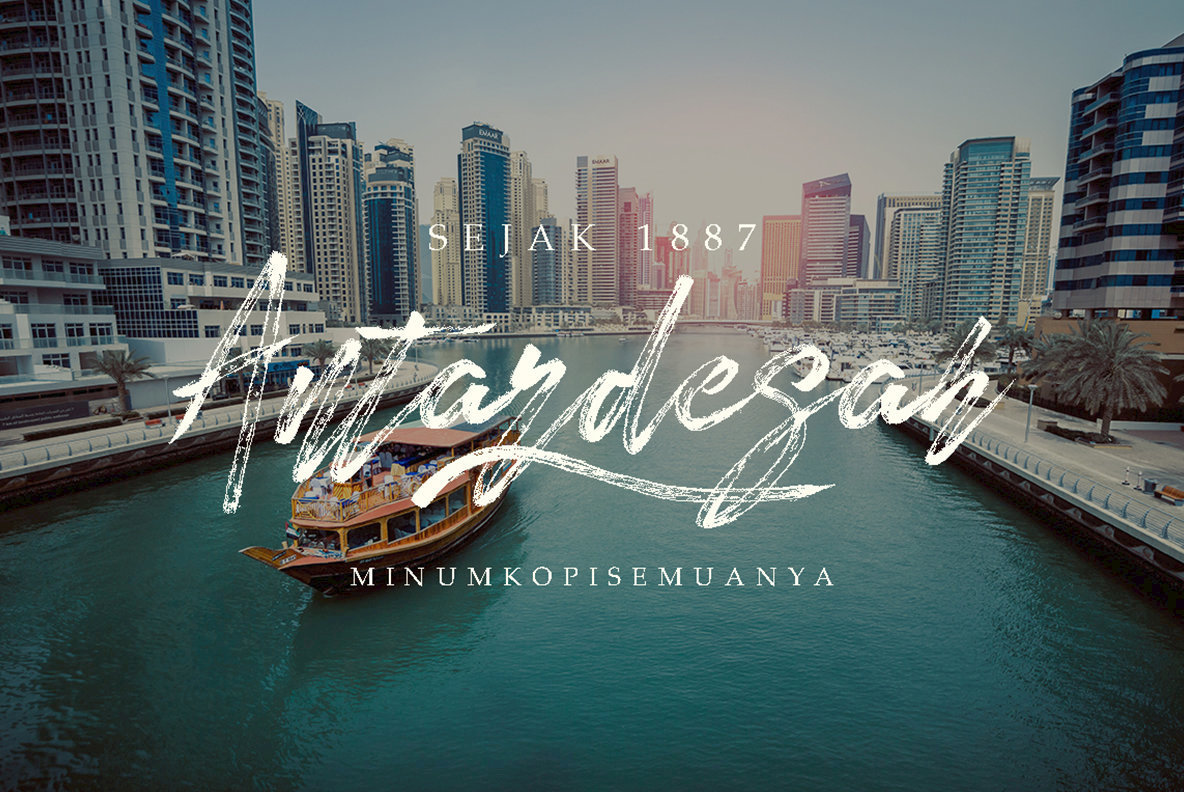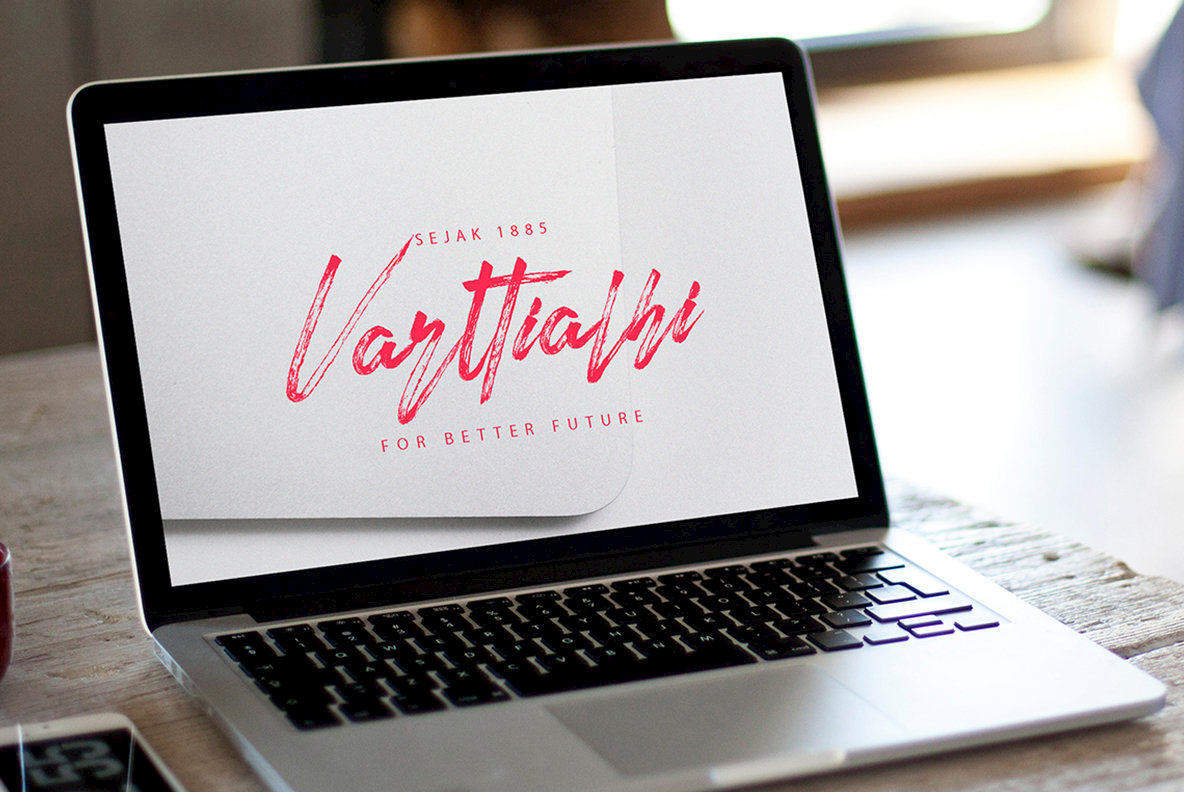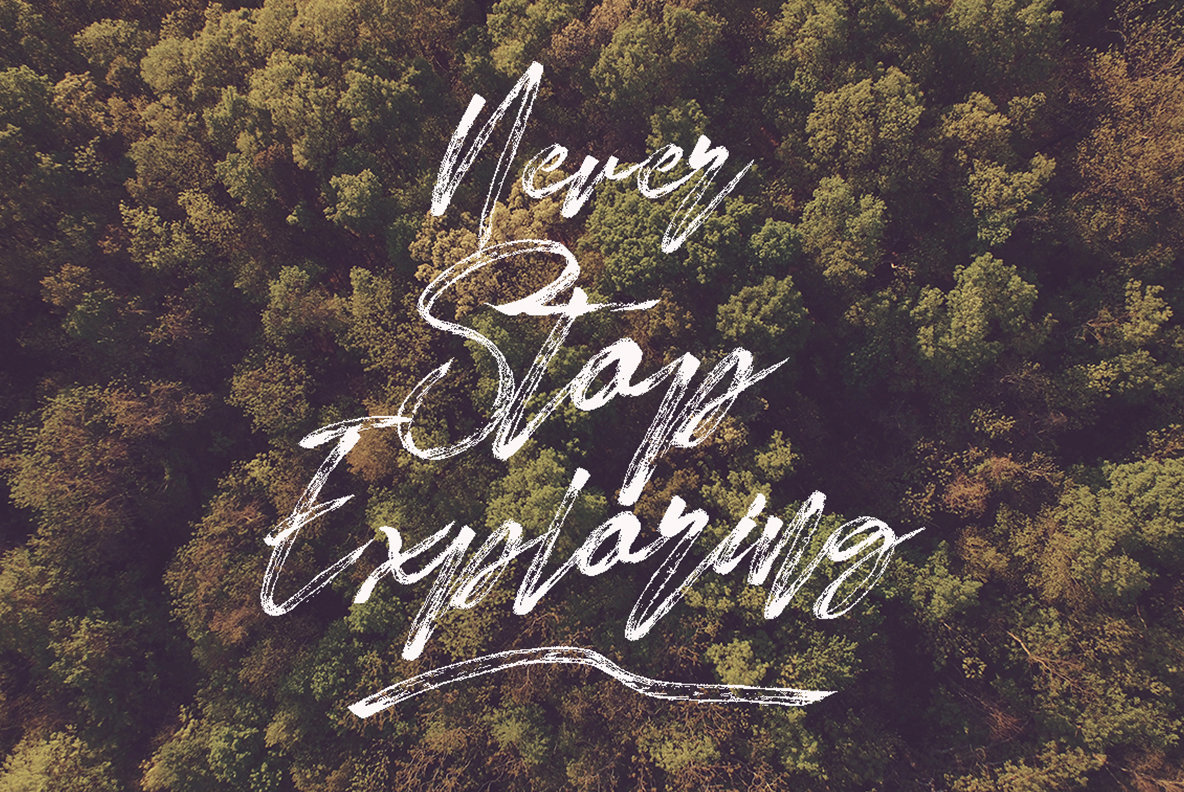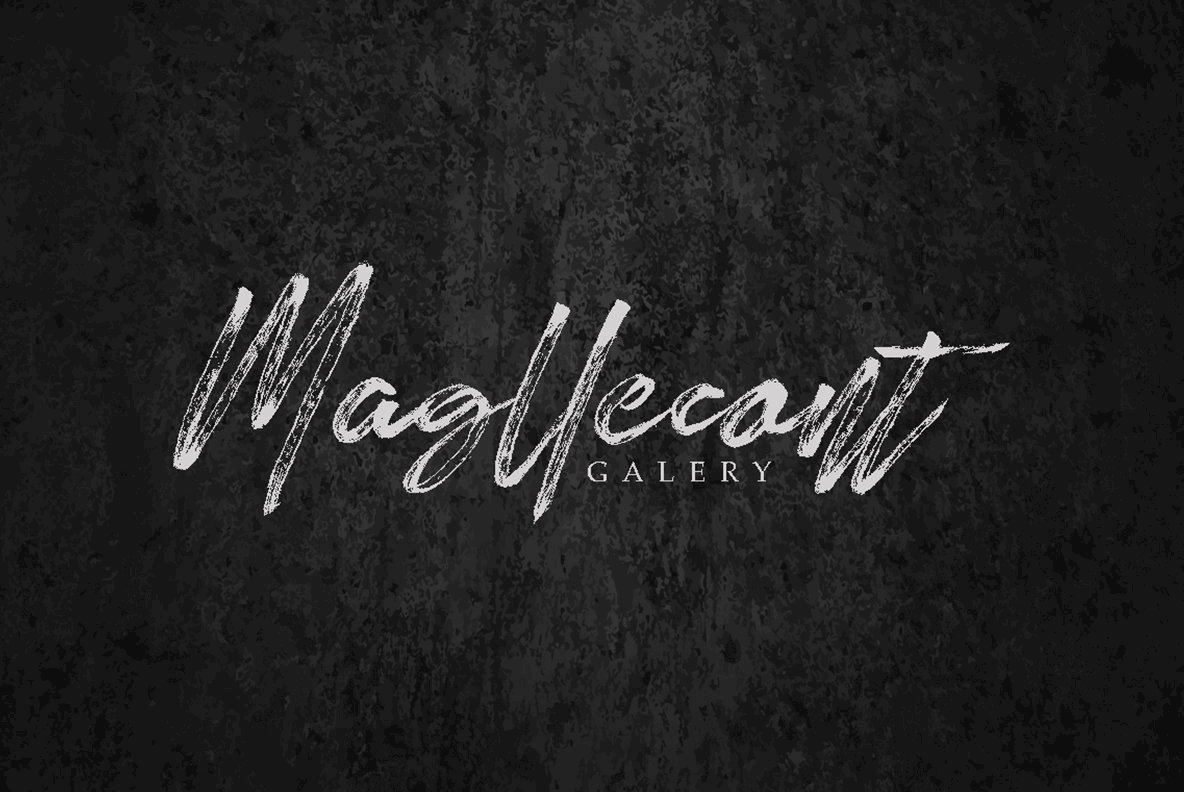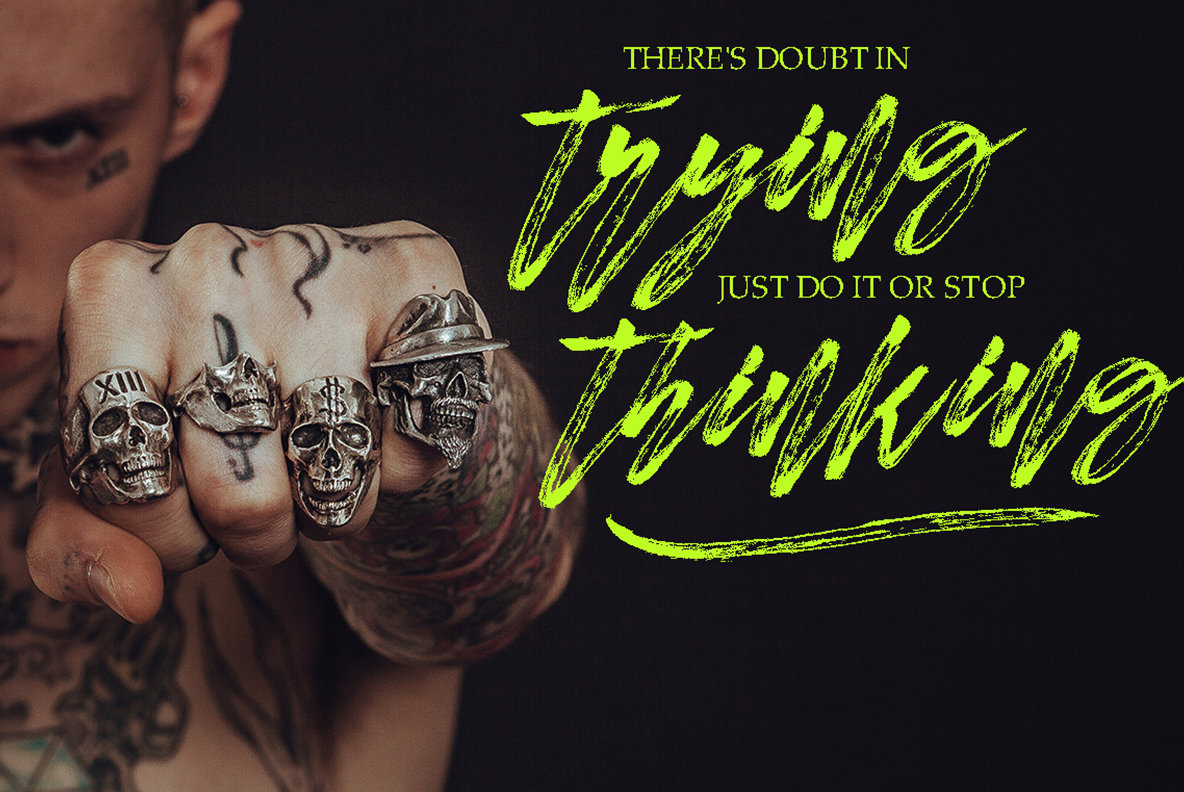
Bettlunerd Font
Bettlunerd is a versatile modern brush font, expertly crafted for those seeking a distinctive script style. Its modern script qualities make it an excellent choice for an array of creative endeavors, from branding and logo design to fashion apparel and more. This font offers the perfect touch for adding personality and flair to your projects.Bettlunerd: A Modern Brush Script for Diverse Projects